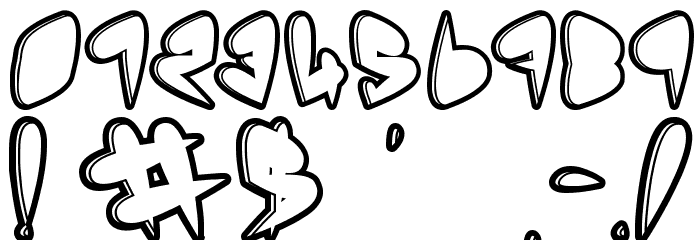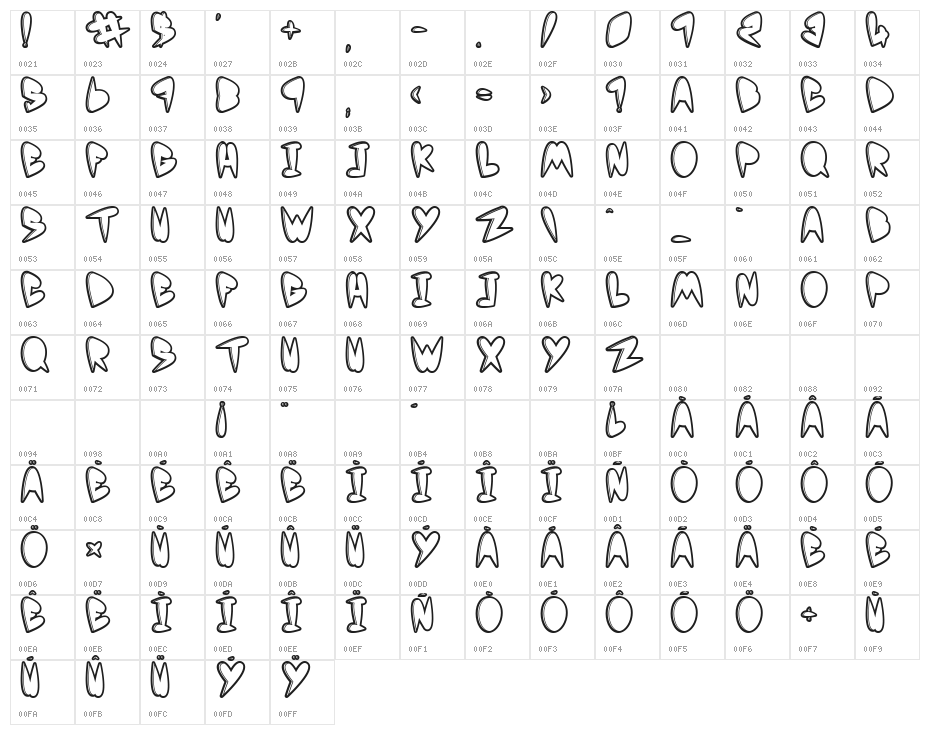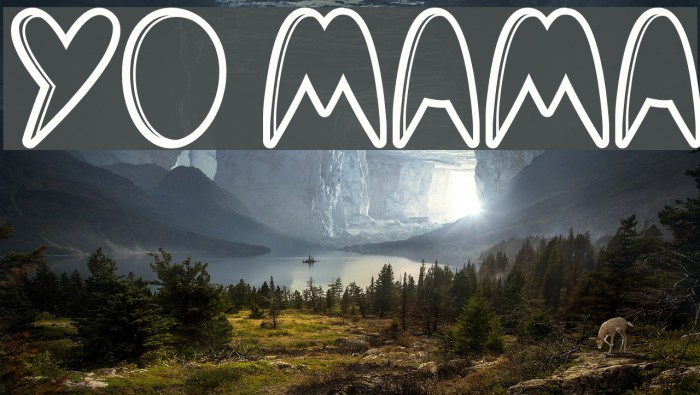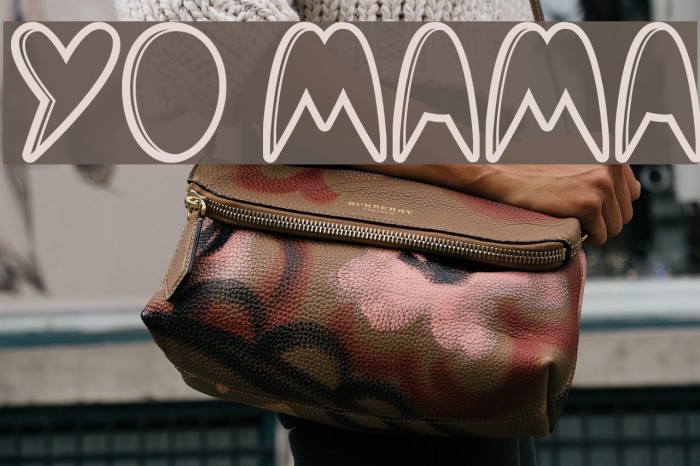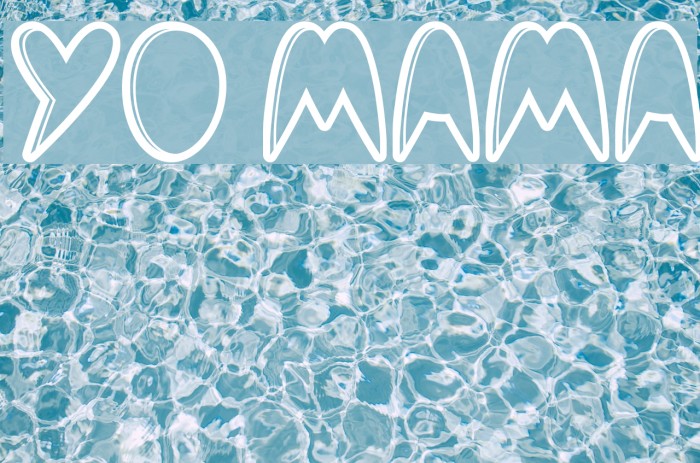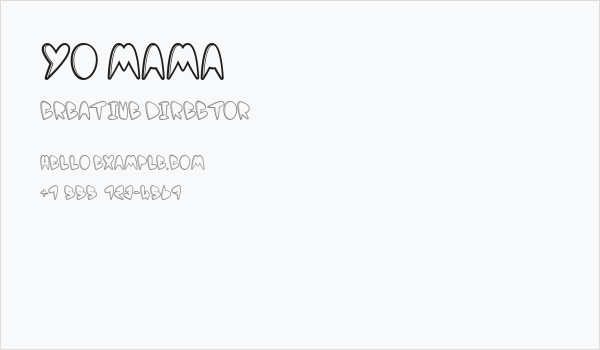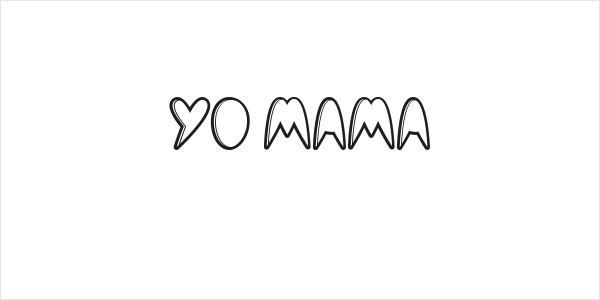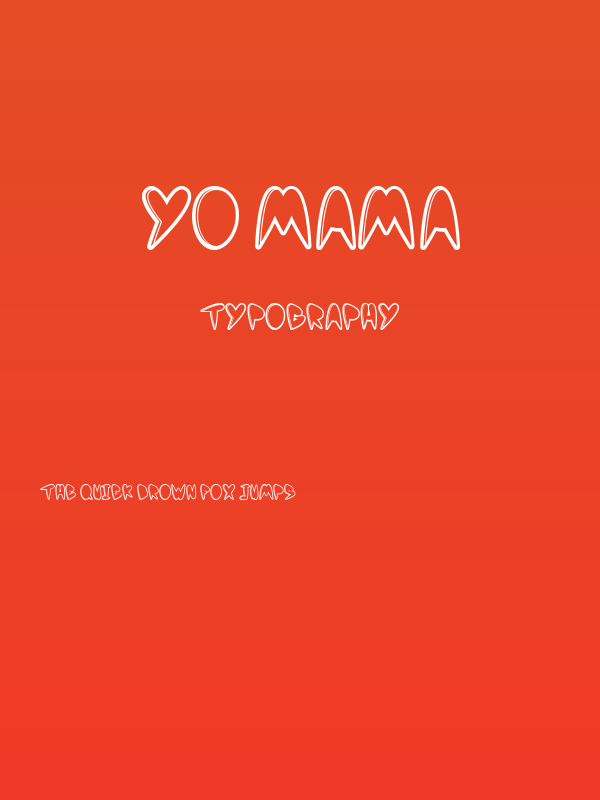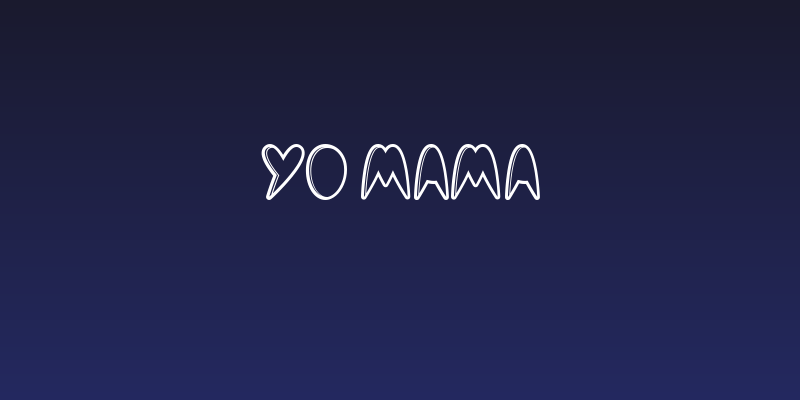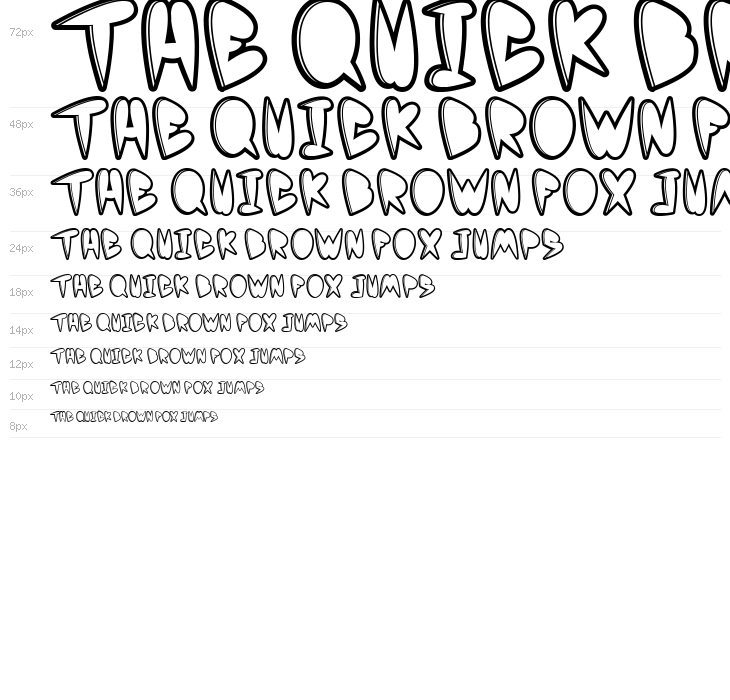
Yo mama Font
Yo mama Description
This font features a bold, playful style with a cartoonish and graffiti-like appearance. The letters are outlined, giving them a three-dimensional effect, and each character has a unique, hand-drawn quality. The uppercase and lowercase letters maintain a consistent style, with exaggerated curves and angles that add to the font's dynamic and energetic feel. The numbers and special characters follow the same design principles, ensuring a cohesive look across all elements. This font is ideal for projects that require a fun and informal touch, such as children's books, comic strips, or playful branding materials.
| Overall Style | Playful, Cartoonish, Graffiti |
| Proposed Projects | Children's books, comic strips, playful branding, posters, and party invitations. |